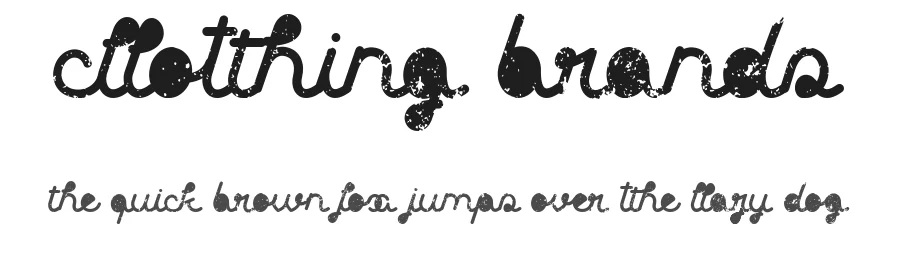
About Marketing Script Font
Marketing Script is a handwritten script typeface designed by Dieter Steffmann. This Regular-weight font contains 213 glyphs and supports 214+ Latin-based languages, making it ideal for international creative work without the friction of font switching. The flowing letterforms mimic natural pen-drawn character, complete with subtle irregularities that distinguish handwritten scripts from machine precision. Wedding invitation suites, greeting card designs, social media promotional graphics, and hand-lettered poster work all benefit from its warm, approachable aesthetic and authentic visual voice. Personality and authenticity outweigh formal sophistication in contexts where this typeface excels.
Designers working with brand identity systems, event materials, and communications find Marketing Script at its best when fostering genuine human connection through visual warmth. Its casual rhythm suits informal contexts far more than corporate reports or dense body text, where the character would create unwanted readability friction. Broad language coverage spanning 214+ Latin-based writing systems allows you to build cohesive international campaigns without managing multiple fonts simultaneously. Available as a free download from this page, with licence terms detailed there, Marketing Script rewards intentional use in contexts where handwritten communication genuinely serves your core design goal. Choose this font when your audience expects personality over perfection, and when a neutral sans-serif would feel impersonal for the story you're sharing.
Marketing Script Font is a script font that shines as a display or heading face. Pair it with a clean sans-serif or serif font for body text β the contrast creates a clear hierarchy while the two styles stay balanced and easy to read.